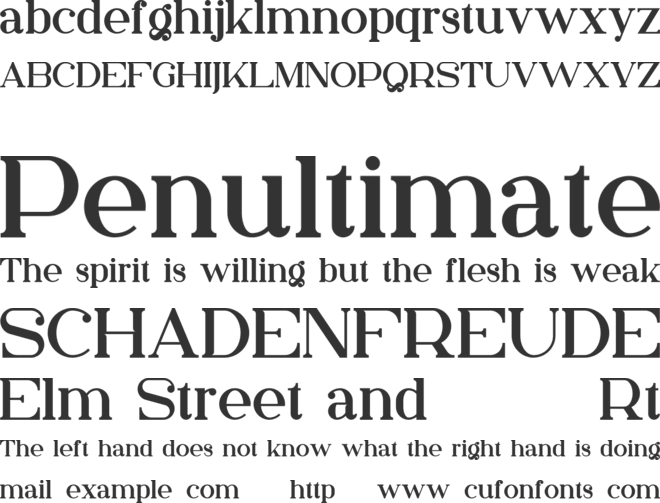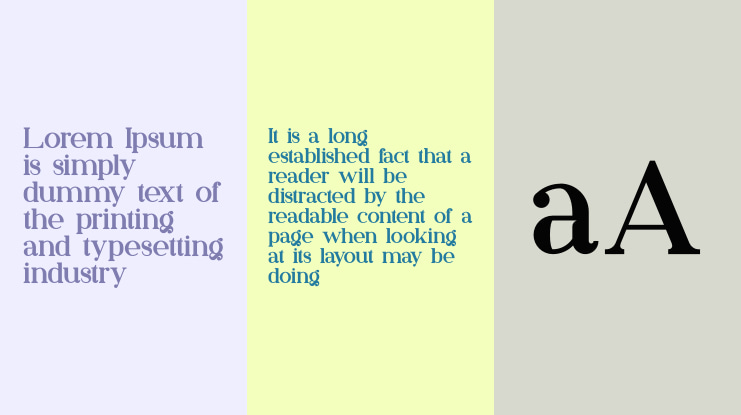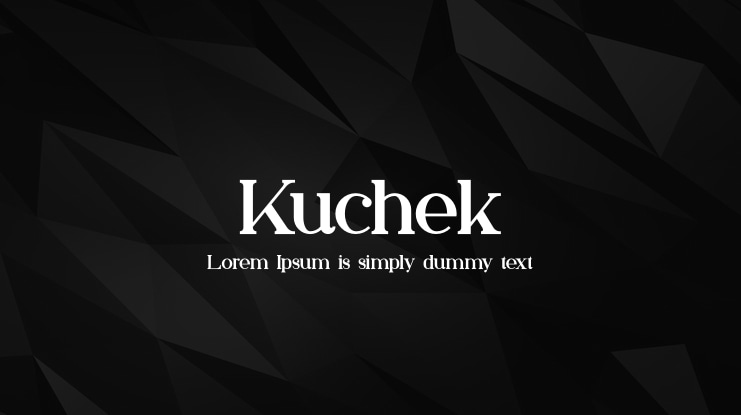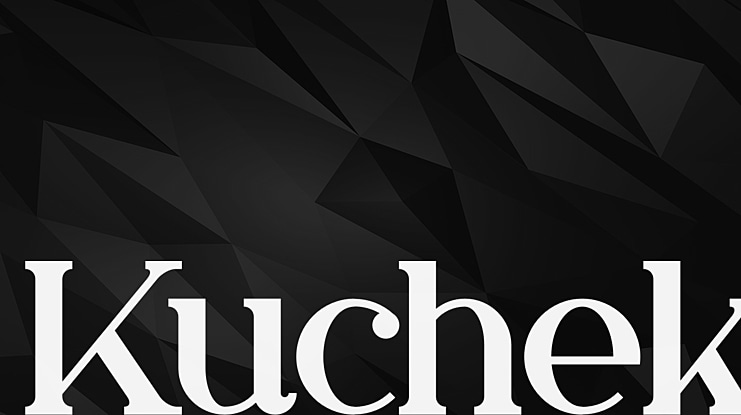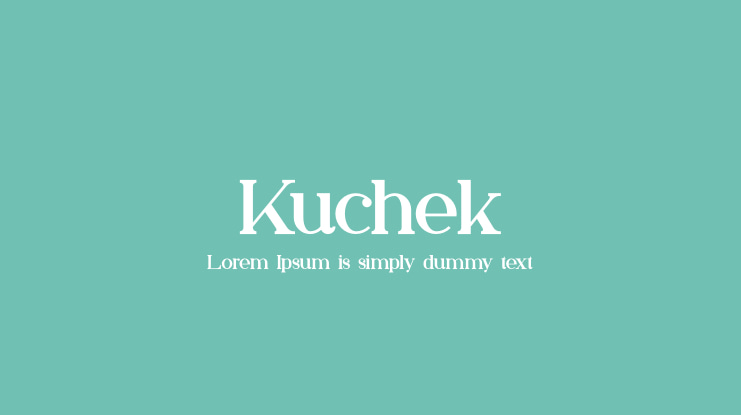
Kuchek Font
Kuchek - Handcrafted Serif Font
Kuchek is elegant, vintage font loaded with basic latin, advanced latin, basic Cyrillic and advanced Cyrillic character sets.
Very versatile font that works great in large and small sizes.
Kuchek is perfect for branding projects, home-ware designs, product packaging, magazine headers - or simply as a stylish text overlay to any background image.
Uppercase, lowercase, numeral, punctuation & Symbol
Alternate glyphs
Ligatures
Multilingual support
Cyrillic support